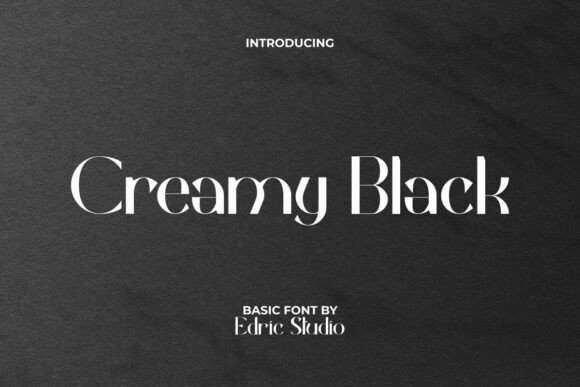
The Birth of a Creative Masterpiece: Creamy Black Font
Have you ever found yourself staring at a blank page, searching for the perfect font to bring your design to life? I know I have. And then, it happens – that spark of inspiration that sets your creative juices flowing. For designers, the right font can be the difference between a mediocre design and a masterpiece. This is where Creamy Black Font comes in – a modern and stylish display font designed to leave a lasting impression on each letter.
Perfect for any business, from entertainment to publishing, Creamy Black Font is the ultimate tool for designers looking to add a touch of elegance and sophistication to their designs. Its unique character shapes make it stand out from the crowd, ensuring that your brand is noticed and remembered. With Creamy Black Font, you can elevate your designs and take your creativity to the next level.
Creamy Black Font Key Features
- Font Family: Creamy Black is a unique, high-end font family designed for luxury and elegance.
- Unique Characteristics: Features a distinctive, creamy texture and a sophisticated, elegant aesthetic, perfect for creating a luxurious and premium visual identity.
- Character Set: Includes a comprehensive set of characters, including Latin, Cyrillic, and Greek alphabets, as well as punctuation and symbols.
Design Review: Creamy Black Font
At first glance, the Creamy Black Font is quite an interesting choice for designers. It has a unique and elegant aesthetic that can add a touch of sophistication to any design project. Here are some things that work well with this font:
- ✨ Elegant lines and curves create a sense of refinement and luxury.
- ✨ The font’s creamy texture adds a tactile feel that can draw the user in.
- ✨ It’s highly legible, even at smaller font sizes, making it suitable for body text.
However, like any font, Creamy Black has its limitations:
- ⚠️ The font can be overwhelming when used in large quantities or as a headline font.
- ⚠️ It may not be the best choice for digital screens, as its creamy texture can appear blurry or distorted.
- ⚠️ It’s not particularly versatile and may not work well in certain design contexts, such as modern or minimalist designs.
Overall, I think the Creamy Black Font is a solid choice for designers who want to add a touch of elegance and sophistication to their projects. However, it’s essential to use it judiciously and consider the design context before making it the centerpiece of your design.
Use Creamy Black Font to add a touch of elegance and sophistication to your designs. It pairs well with bold colors and clean lines. Experiment with different font sizes and styles to create visual interest.
Creamy Black Font is ideal for:
- Business cards and resumes.
- Marketing materials and brochures.